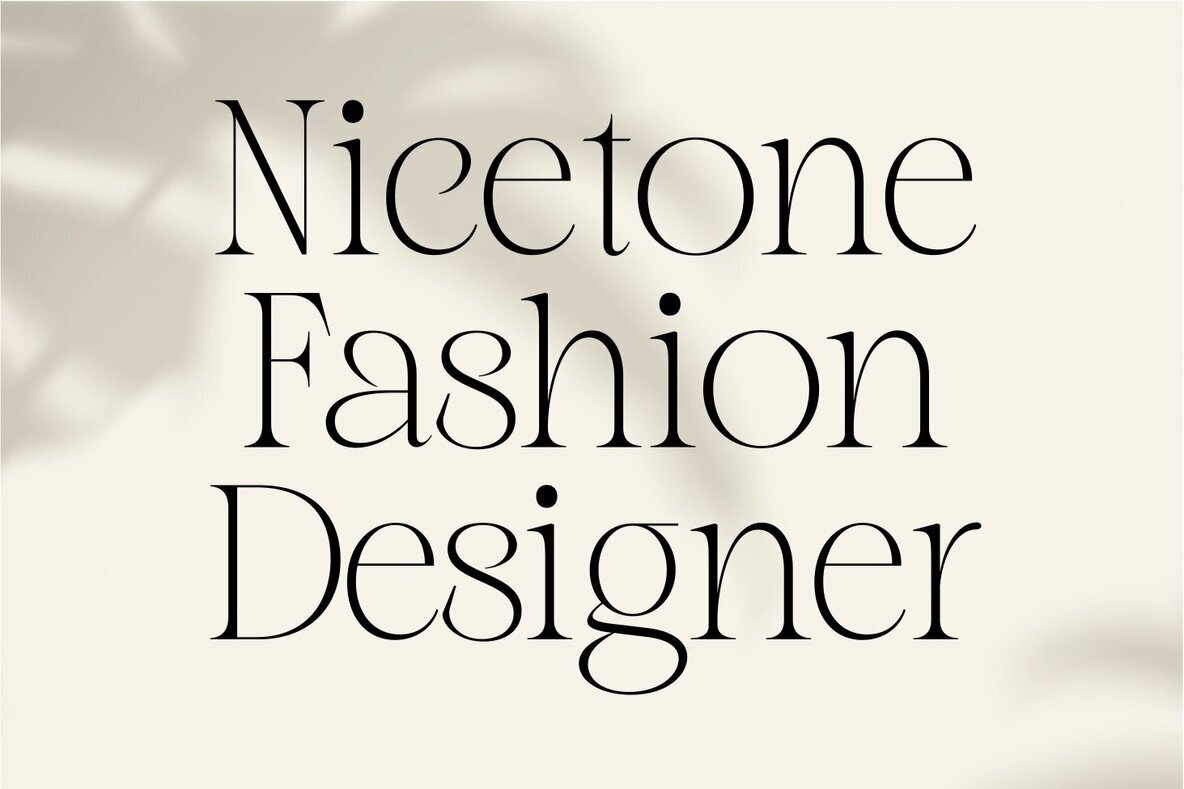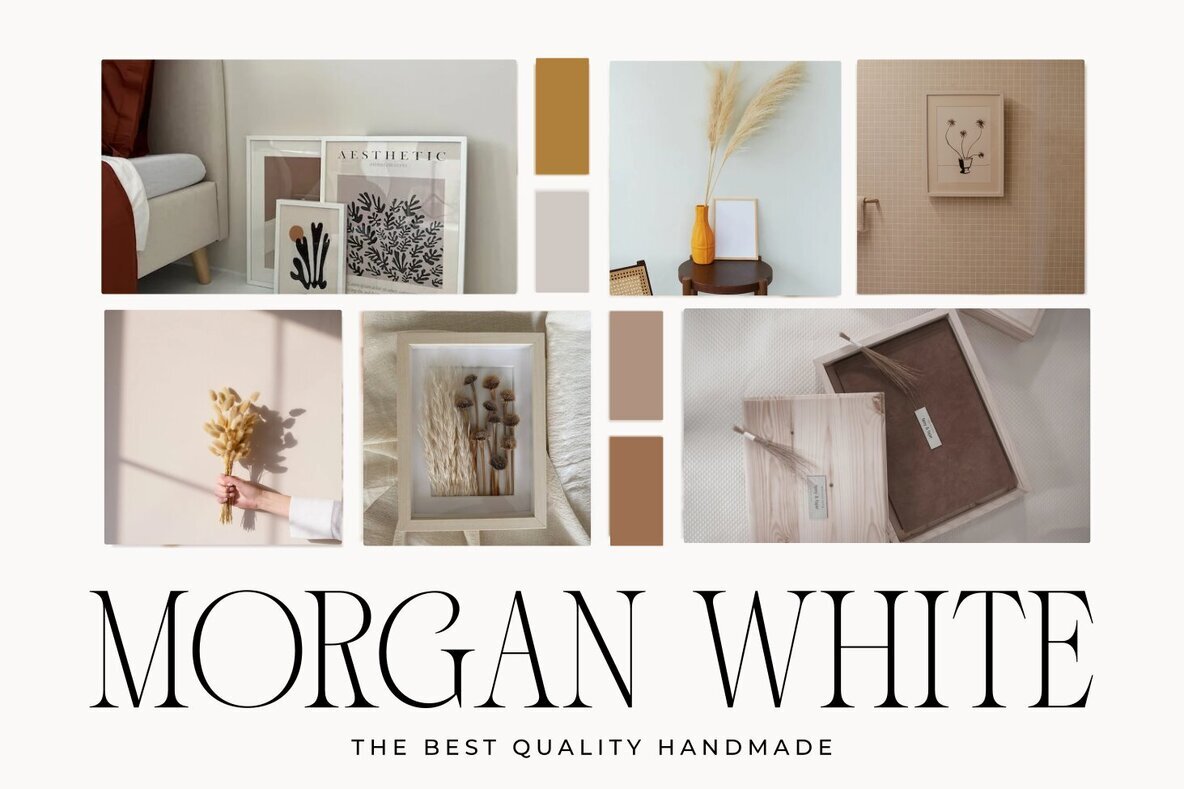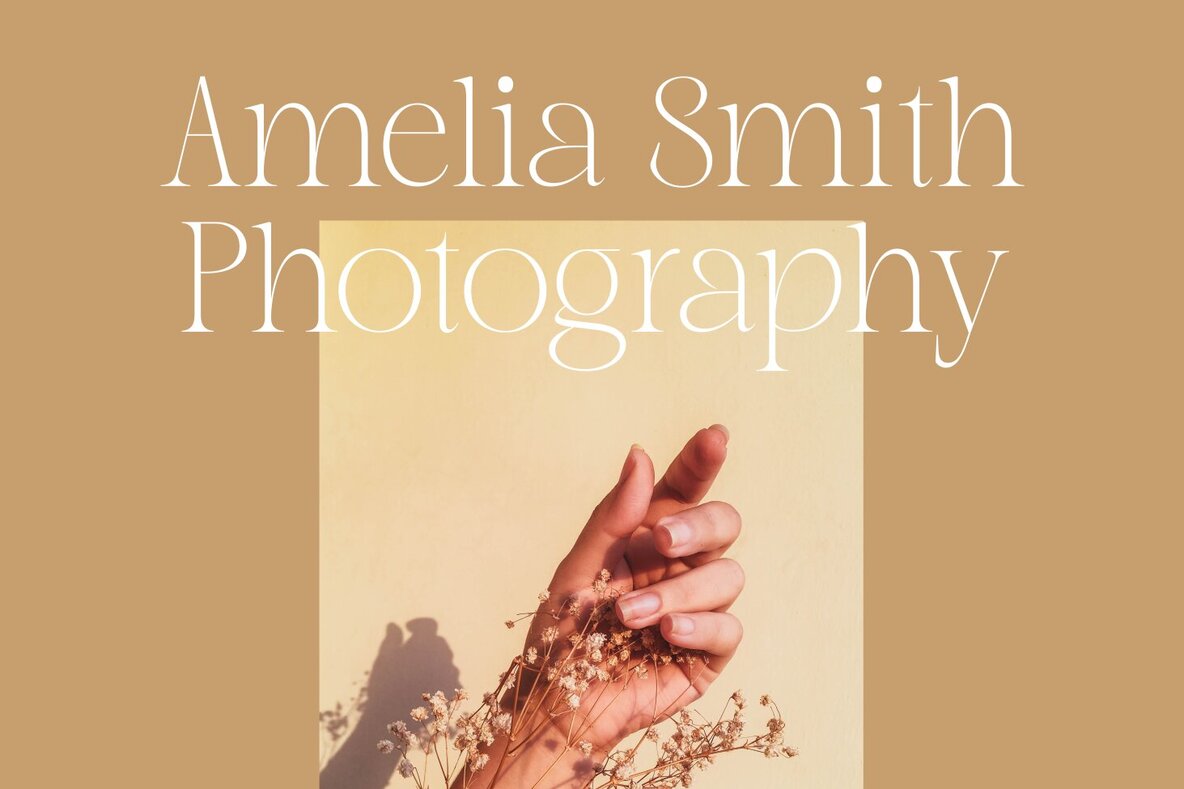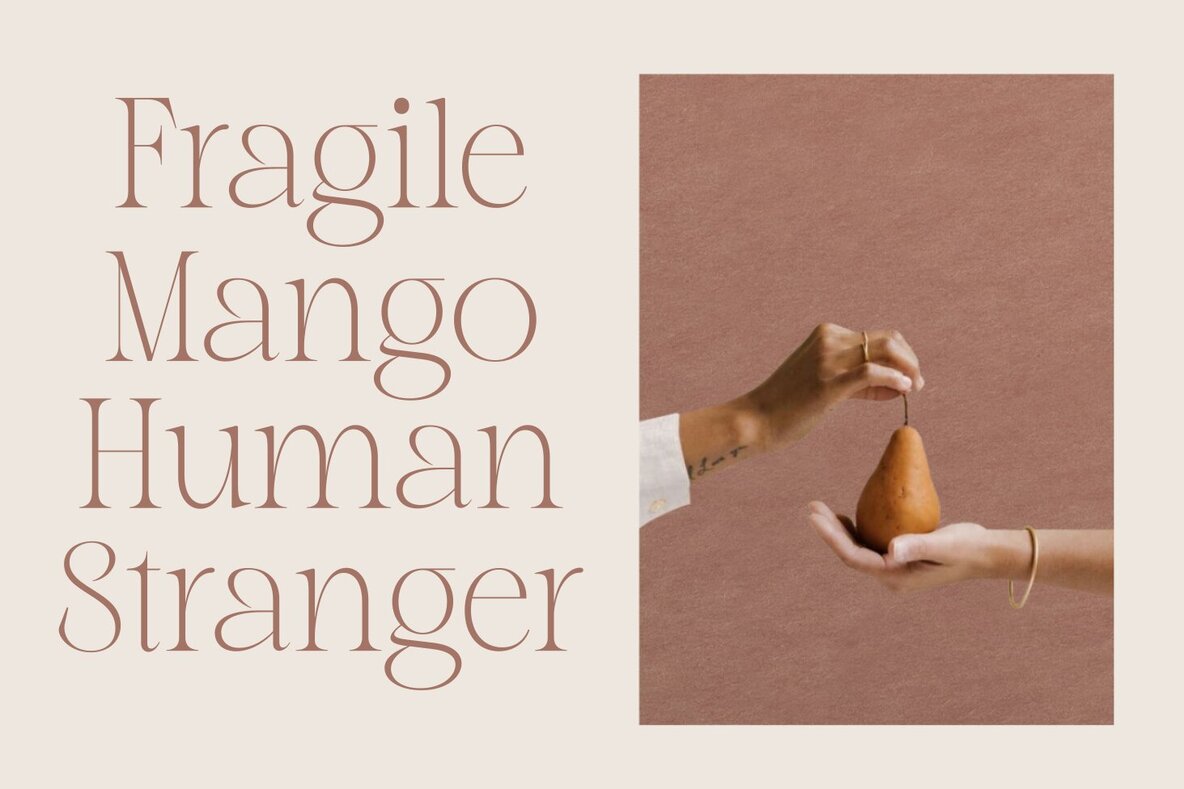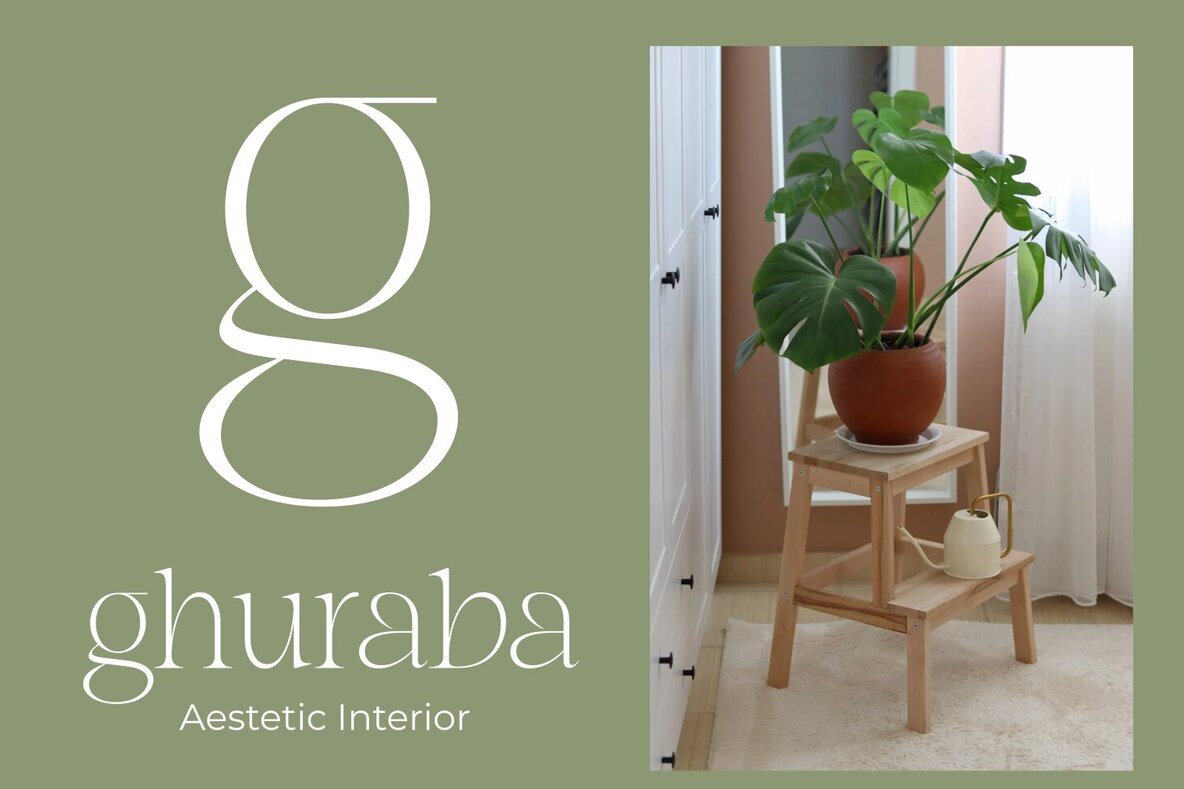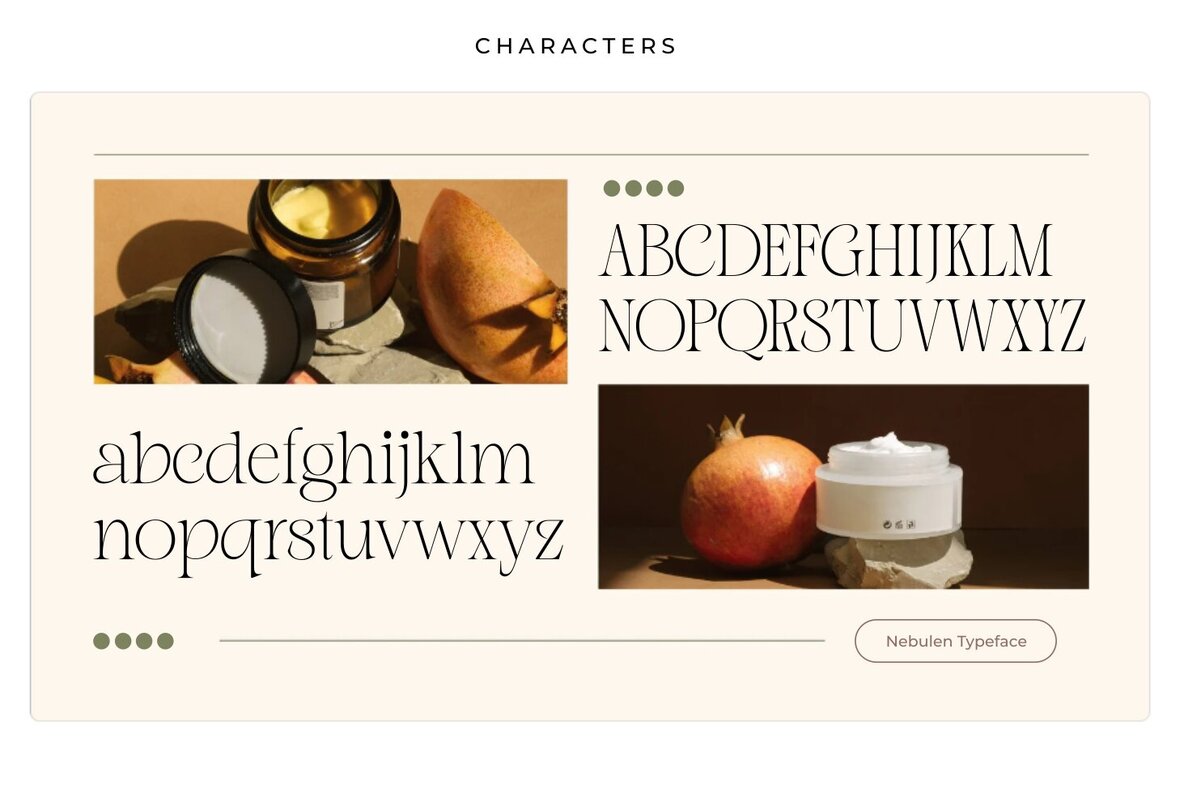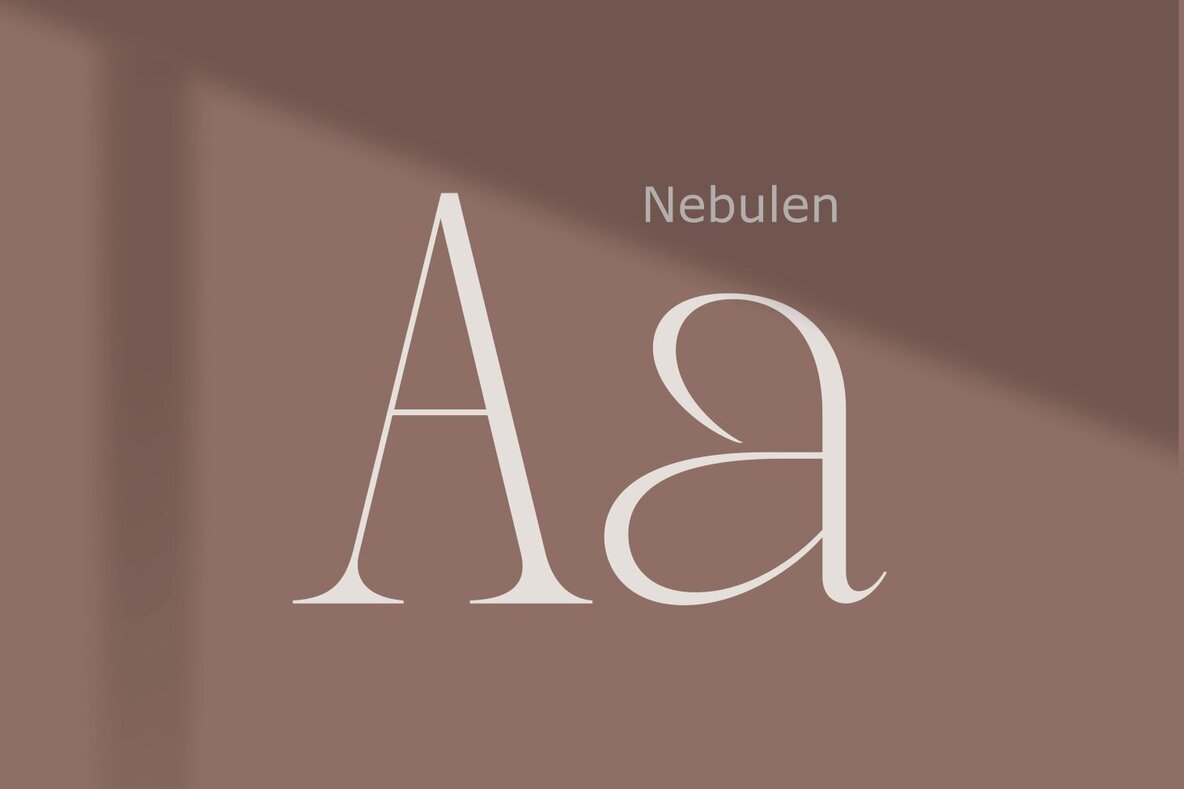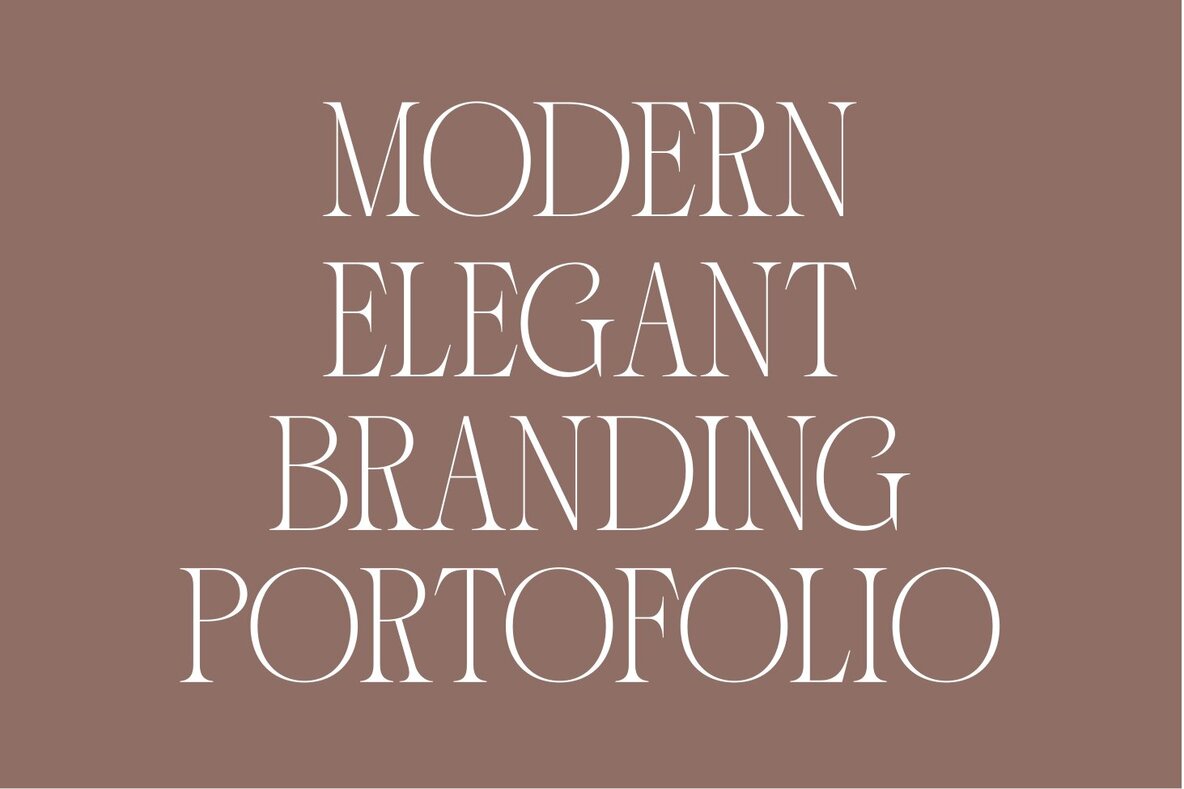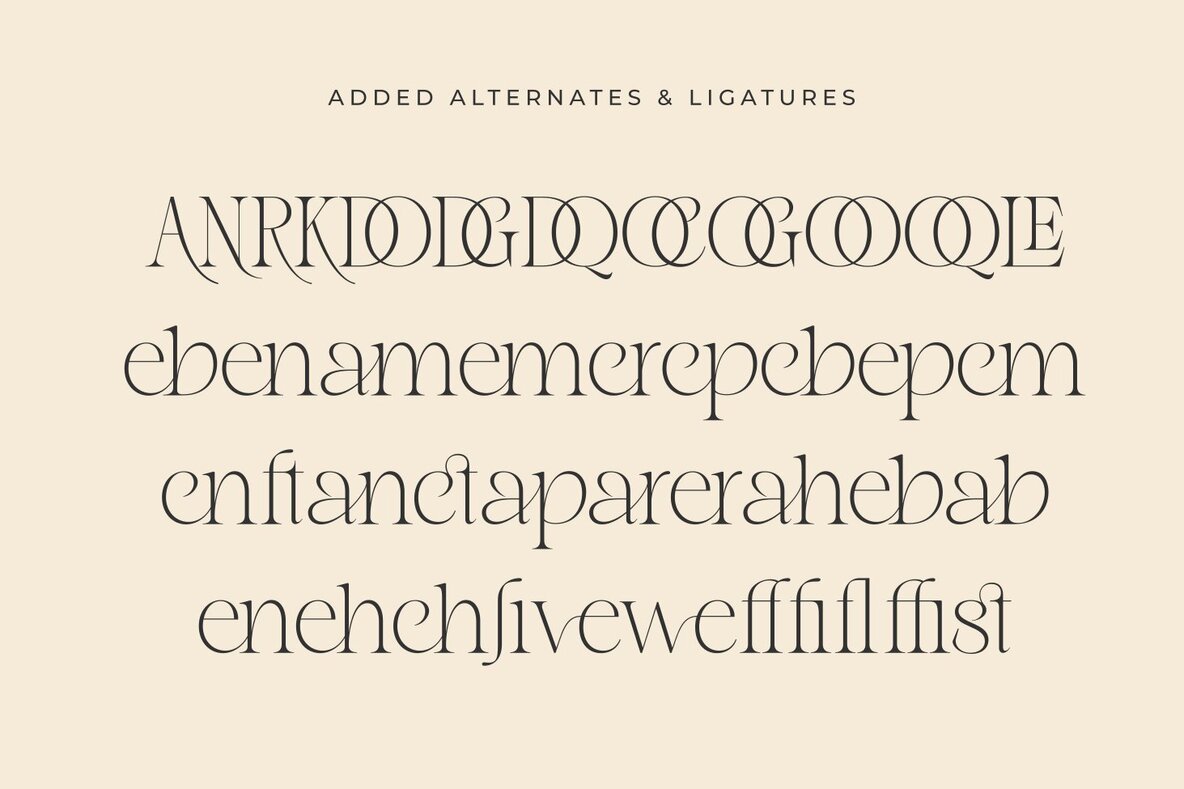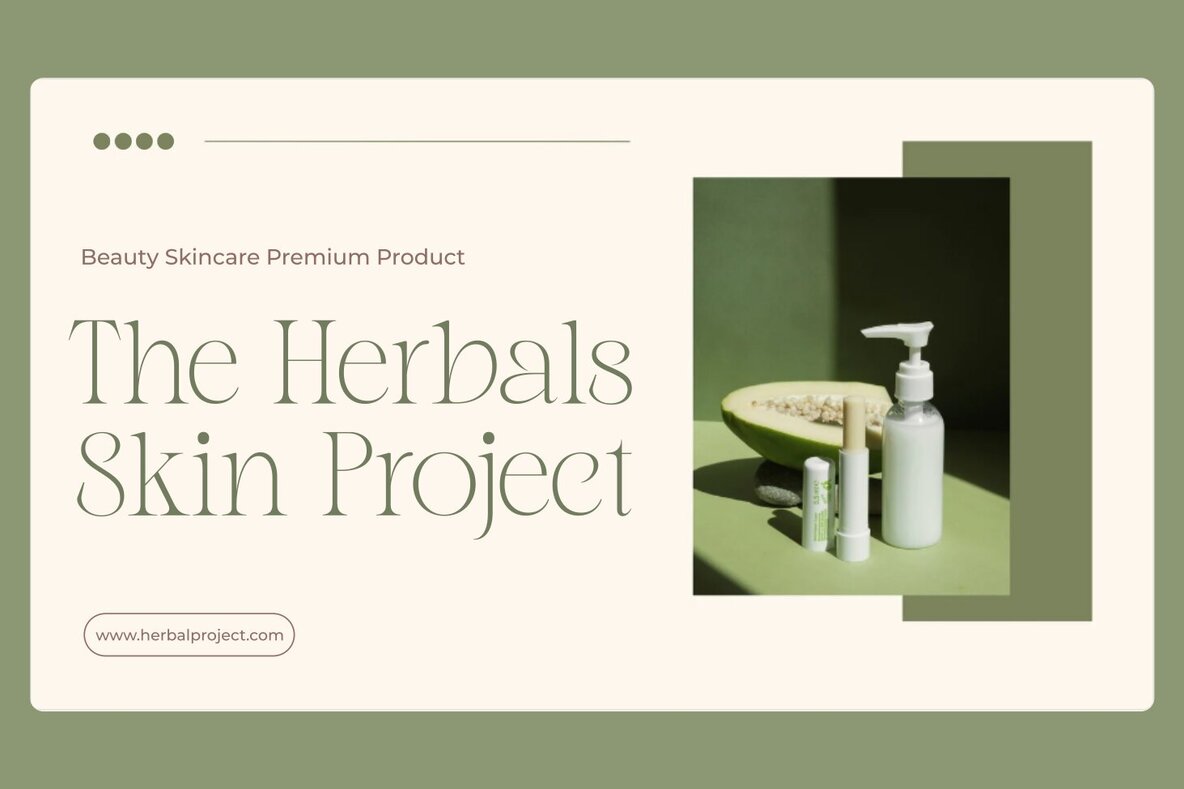
Nebulen Font
Nebulen Regular
Nebulen is a beautifully crafted serif font that exudes a romantic and lovely aesthetic. Whether you're using it for crafts, digital designs, presentations, or greeting cards, this font offers the versatility to become your favorite go-to choice for any occasion.Nebulen: A Feminine Serif with Romantic Charm